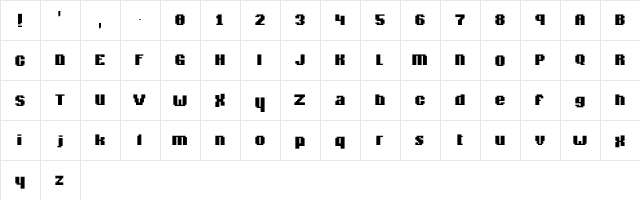
pixelblock Normal
Design Context for pixelblock Typeface
pixelblock celebrates the constraints of early digital type, turning pixel geometry into a distinctive and immediately recognisable style.
Well-suited to indie game interfaces, retro computing aesthetics, and pixel art-adjacent design work.
Pro Tip: Use pixelblock at sizes that align with its pixel grid for the sharpest rendering — scaling to non-integer multiples can introduce unwanted blur.